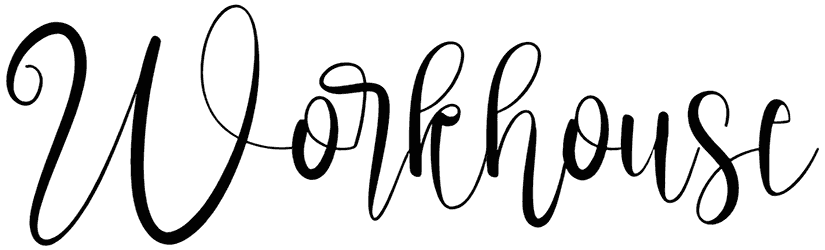
Workhouse Font
Boasting an elegant, swirly calligraphy font with extra delicate swashes is the thing that only Workhouse can do. The flawless texture of this font is admirable and conveys a sense of joy and happiness.
It comes with a complete set of characters that will allow you to use them for a variety of concepts, but pay attention to their illegibility. It’s a perfect choice for wedding invitations, upscale parties, fashion catalogs, mug designs, and a sweet letter for your darling.